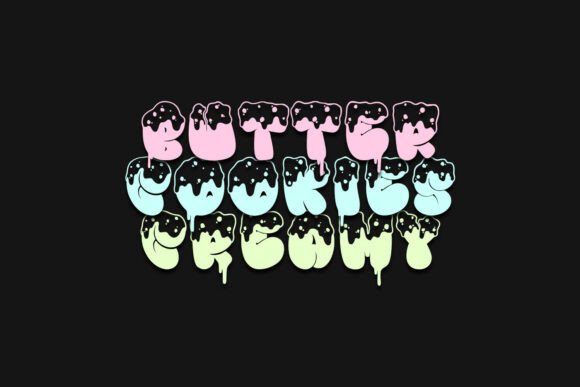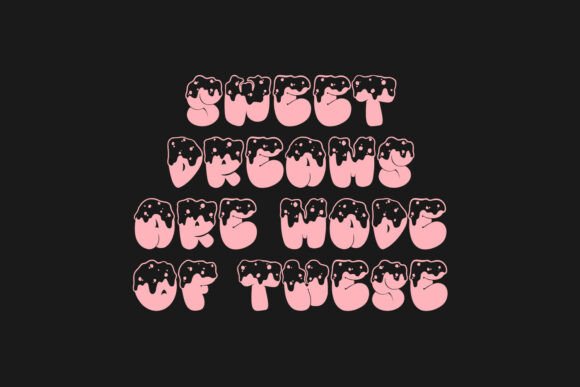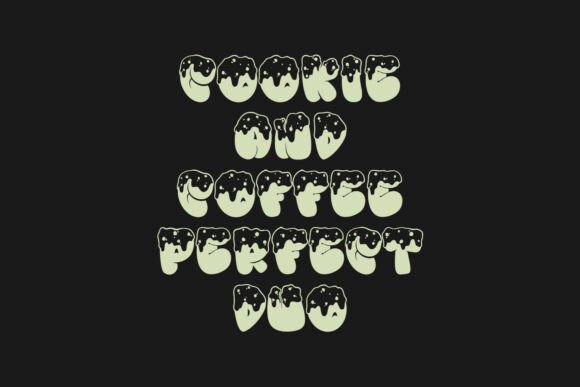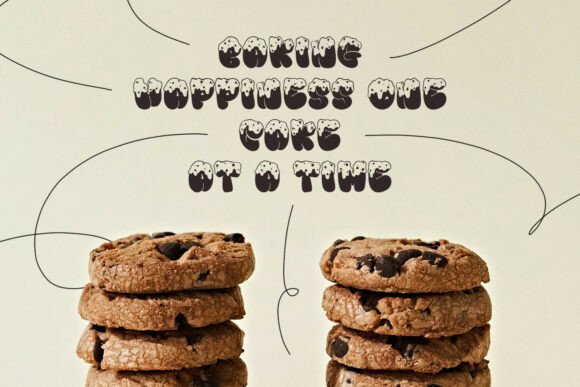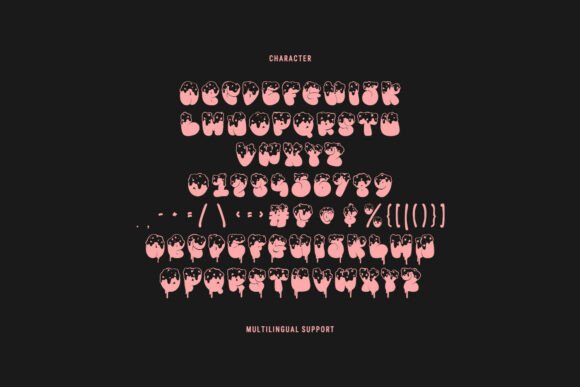
Unleash Your Inner Baker with Cookice Font: The Sweetest Addition to Your Design Toolbox
Are you ready to add a pinch of fun and a dash of whimsy to your designs? Look no further than Cookice Font, the delectable typeface that’s sure to satisfy your sweet tooth. Inspired by the irresistible charm of freshly baked cookies, melted frosting, and sweet treats, Cookice brings a playful, bubbly, and slightly messy vibe to any project.
A Font that’s the Icing on the Cake
Cookice is more than just a font – it’s an experience. Each letter is carefully crafted to resemble a plump, round cookie or cake, dripping with a delectable layer of frosting or chocolate. The alternating texture with sprinkles, drips, and a rounded, soft silhouette makes this font a standout choice for anyone looking to convey fun, indulgence, and sugary goodness.
The Perfect Ingredient for Your Design Recipe
Whether you’re a designer, crafter, or simply someone who loves to get creative, Cookice Font is the perfect addition to your toolbox. This deliciously cute and quirky font is ideal for:
- Food branding: Add a touch of sweetness to your restaurant or bakery’s logo, menu, or packaging.
- Candy packaging: Make your treats stand out on store shelves with a font that’s as fun as it is appetizing.
- Playful logos: Create a brand identity that’s as unique as it is memorable.
- Any design that wants to look tasty and fun: From party invitations to social media graphics, Cookice Font is sure to make your creations look irresistible.
Multilingual Support and Alternatives
Cookice Font is not just a pretty face – it’s also incredibly versatile. With multilingual support and alternatives, you can use this font to create designs that appeal to a wide range of audiences. Whether you’re working on a project for a global brand or a local bakery, Cookice Font has got you covered.
PUA-Encoded for Easy Customization
Cookice Font is PUA-encoded, which means you can access all glyphs, swashes, and alternate characters with ease. This makes it simple to customize your creations and add your own personal touch. With Cookice Font, you can:
- Easily switch between different letterforms and alternates.
- Add sprinkles, drips, and other decorative elements to your text.
- Experiment with different font combinations to create a unique look.
Get Ready to Indulge in the Sweet Life
Whether you’re a seasoned designer or just starting out, Cookice Font is the perfect way to add a touch of sweetness to your work. So go ahead, get creative, and indulge in the sweet life with Cookice Font.
Key Features of Cookice Font
- Deliciously cute and quirky aesthetic inspired by freshly baked cookies and sweet treats.
- Playful, bubbly, and slightly messy vibe.
- Alternating texture with sprinkles, drips, and a rounded, soft silhouette.
- Multilingual support and alternatives.
- PUA-encoded for easy customization.
- Ideal for food branding, candy packaging, playful logos, and more.